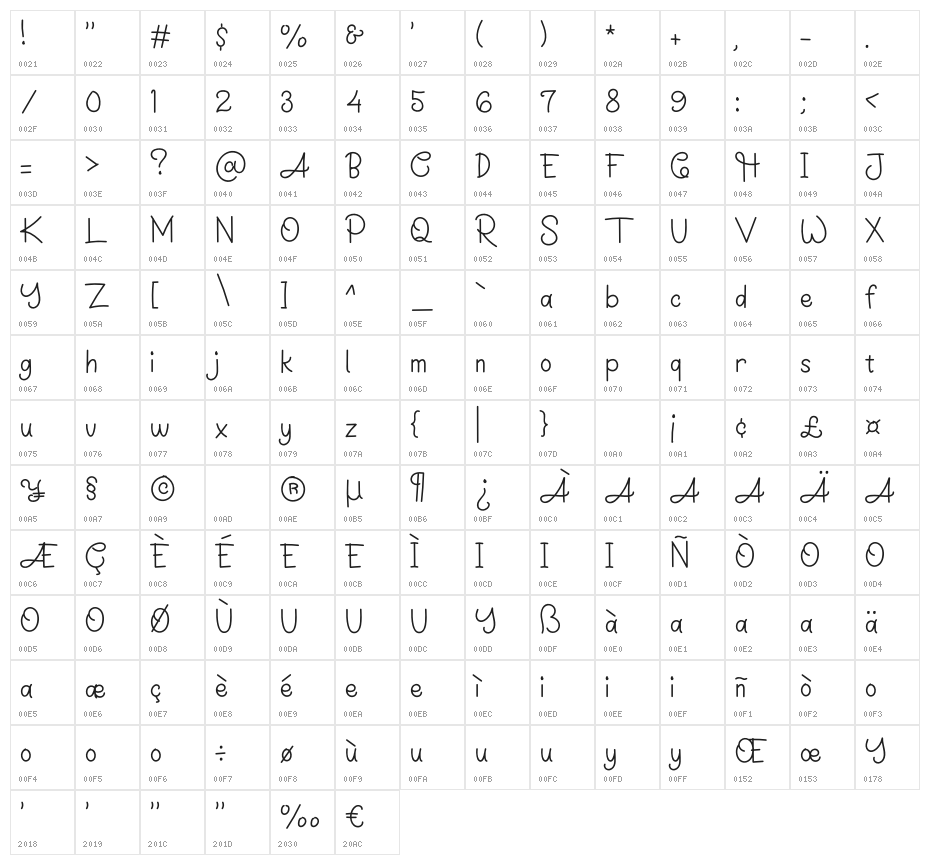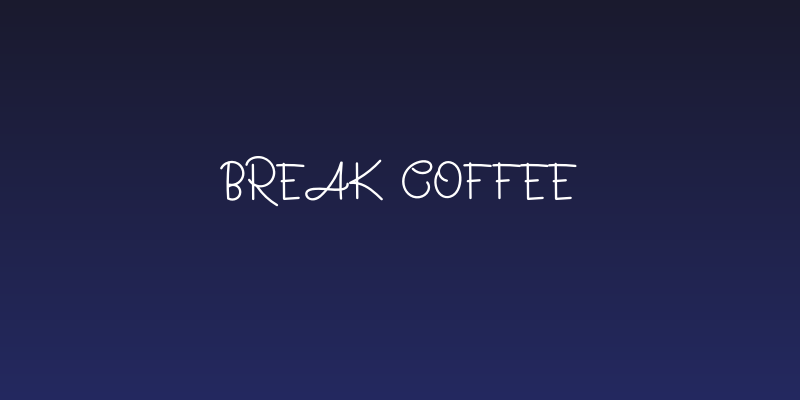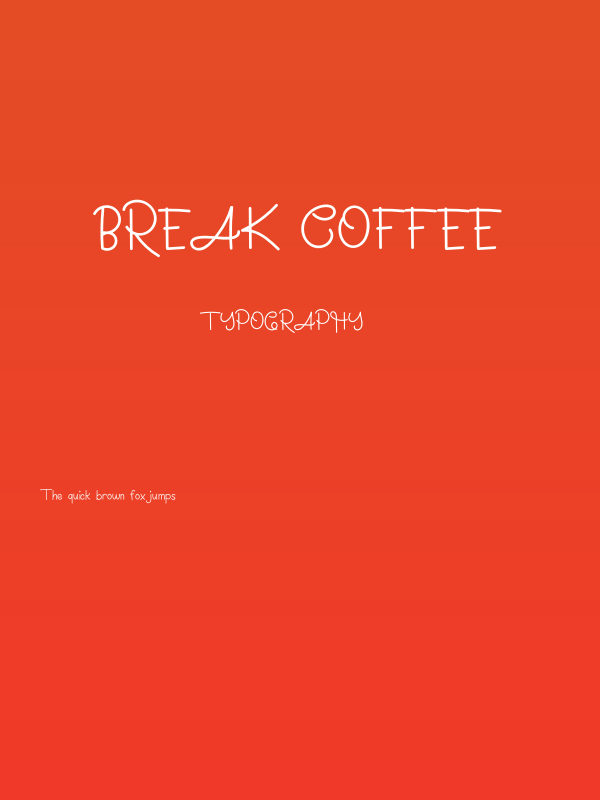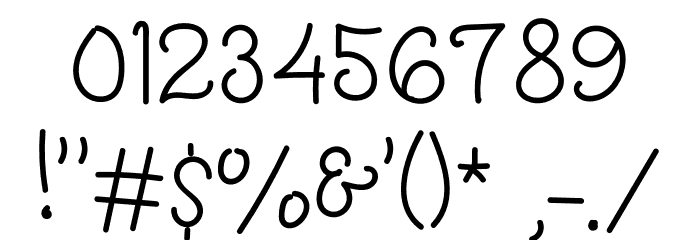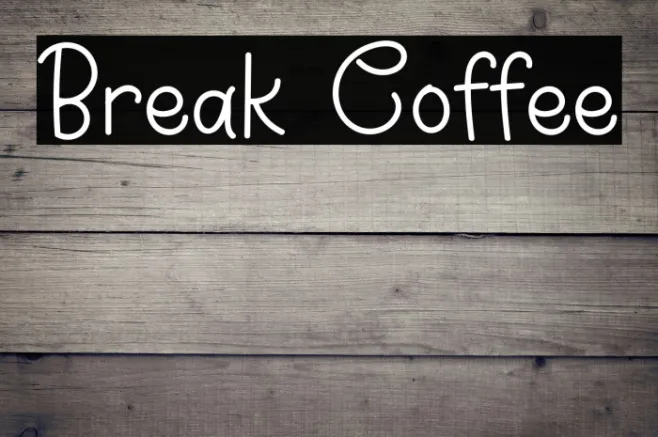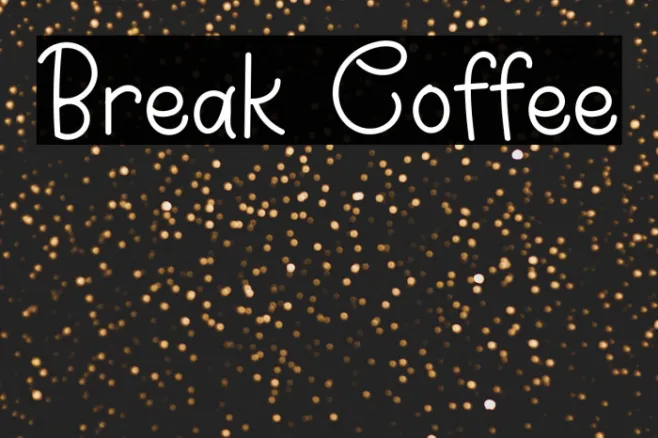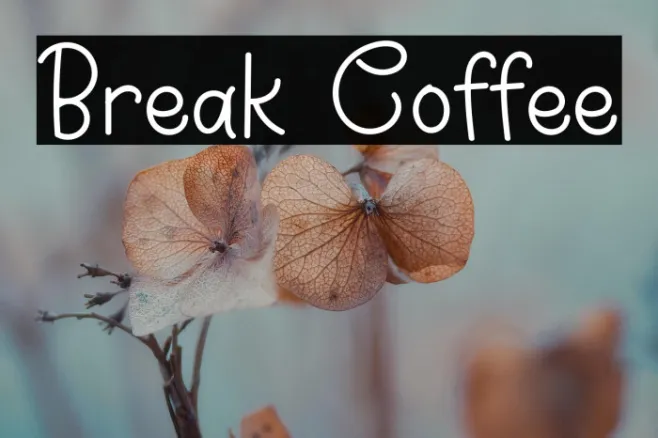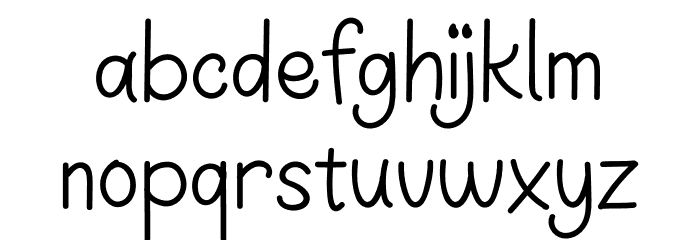
Break Coffee Font
Break Coffee Description
This playful and whimsical font features a handwritten style with a casual and friendly appearance. The uppercase letters are characterized by their unique loops and curves, giving them a lively and dynamic feel. The lowercase letters maintain a consistent flow, with some characters like 'g' and 'y' having distinctive descenders that add to the font's charm. The numerals are rounded and easy to read, while the special characters are creatively designed to match the overall style. This font exudes a sense of fun and creativity, making it perfect for projects that require a personal touch.
| Proposed Projects | Ideal for greeting cards, children's books, playful branding, and creative posters. |